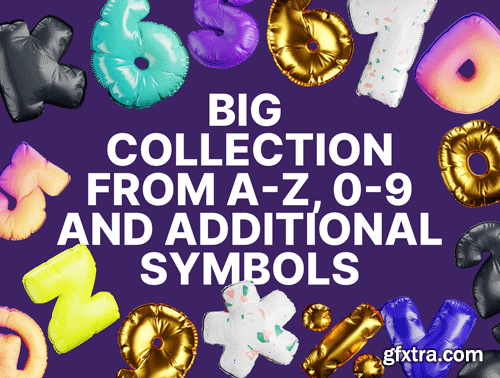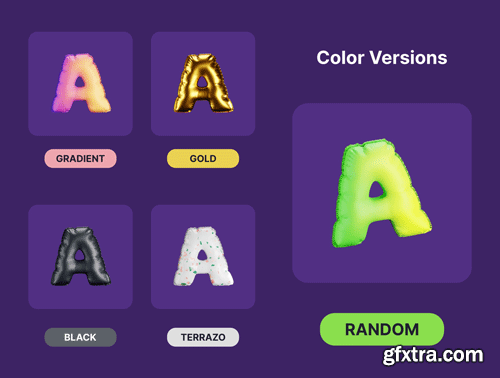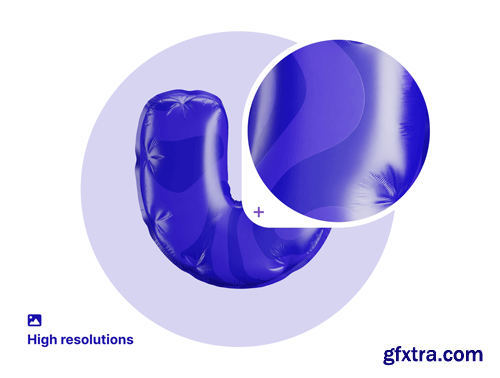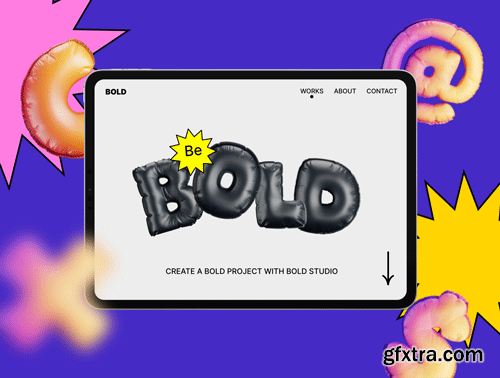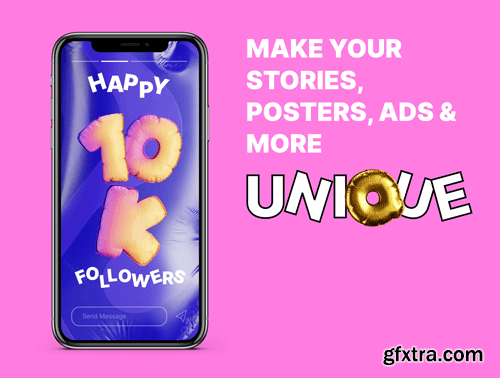
Blame! Inflatable 3D Font Ui8.net
Make your message bold and grab attentions. This inflatable 3D font set was made specially for designers, marketers, smm creatives, and all who need unique graphics. Perfect for stories, social campaigns, posts and ads.